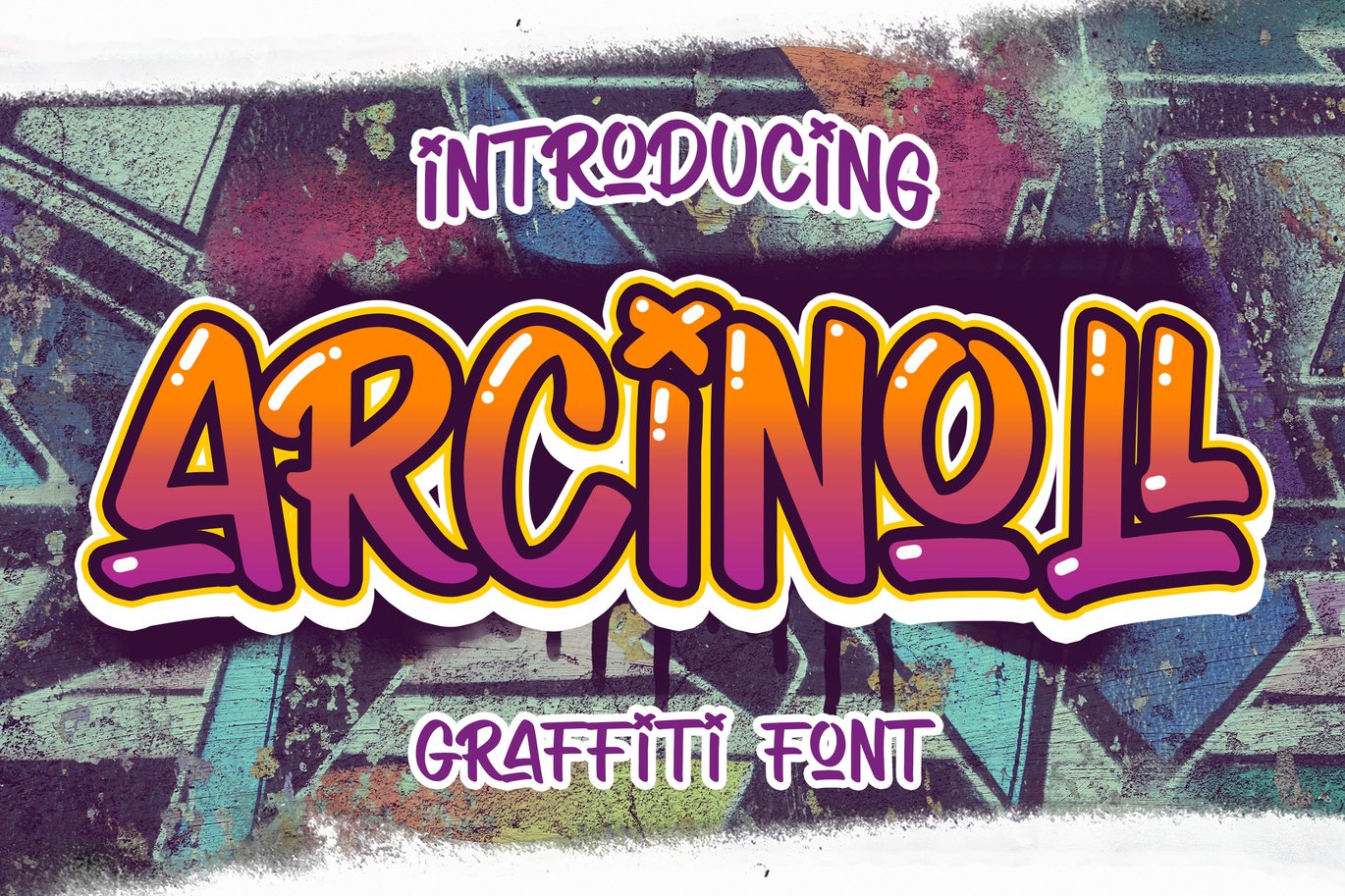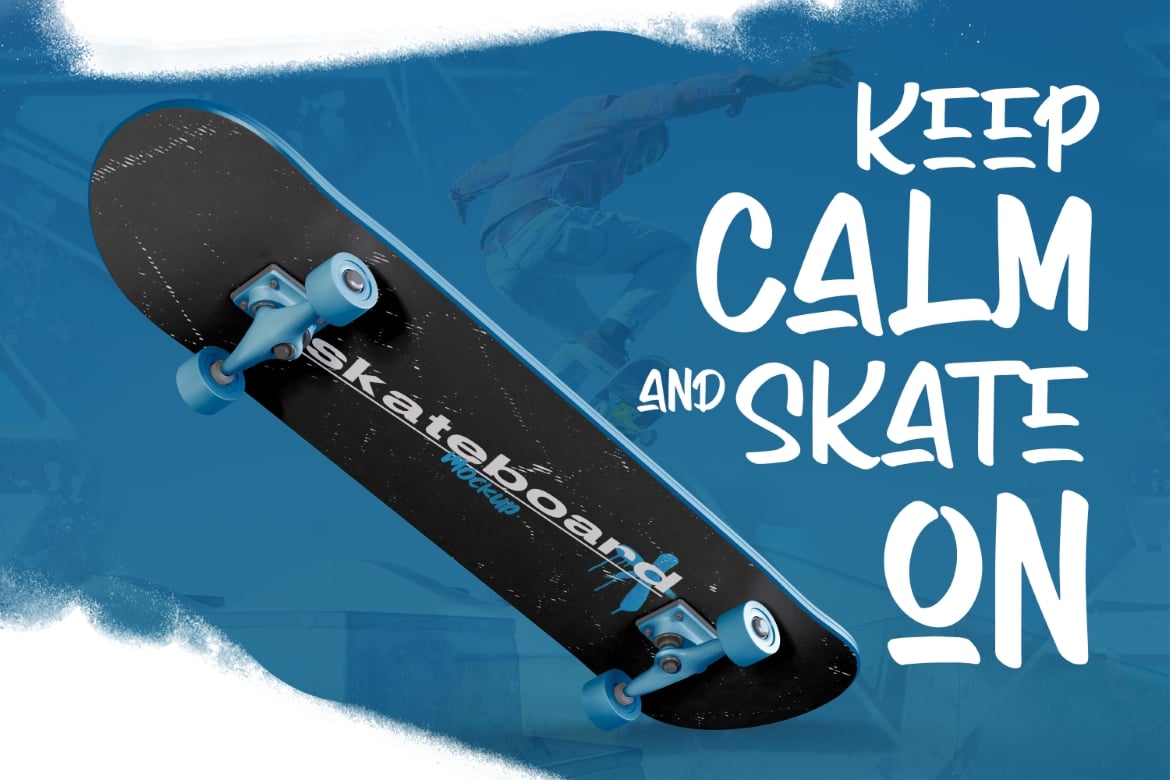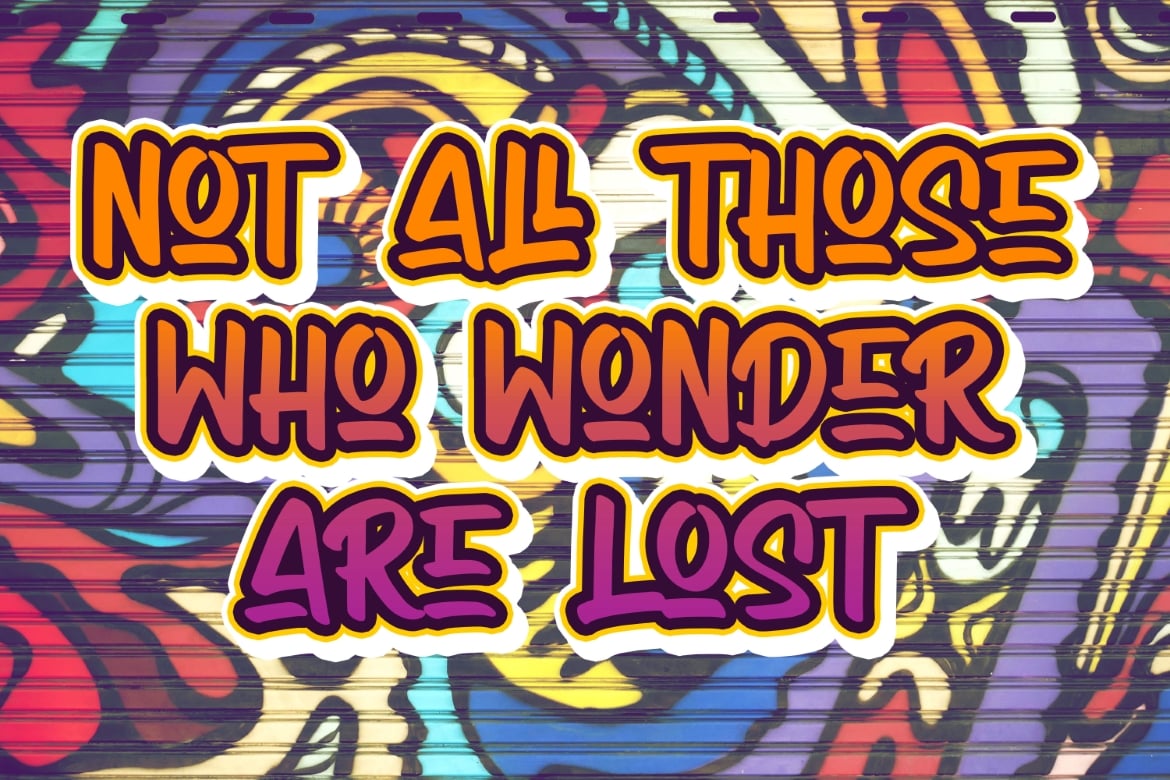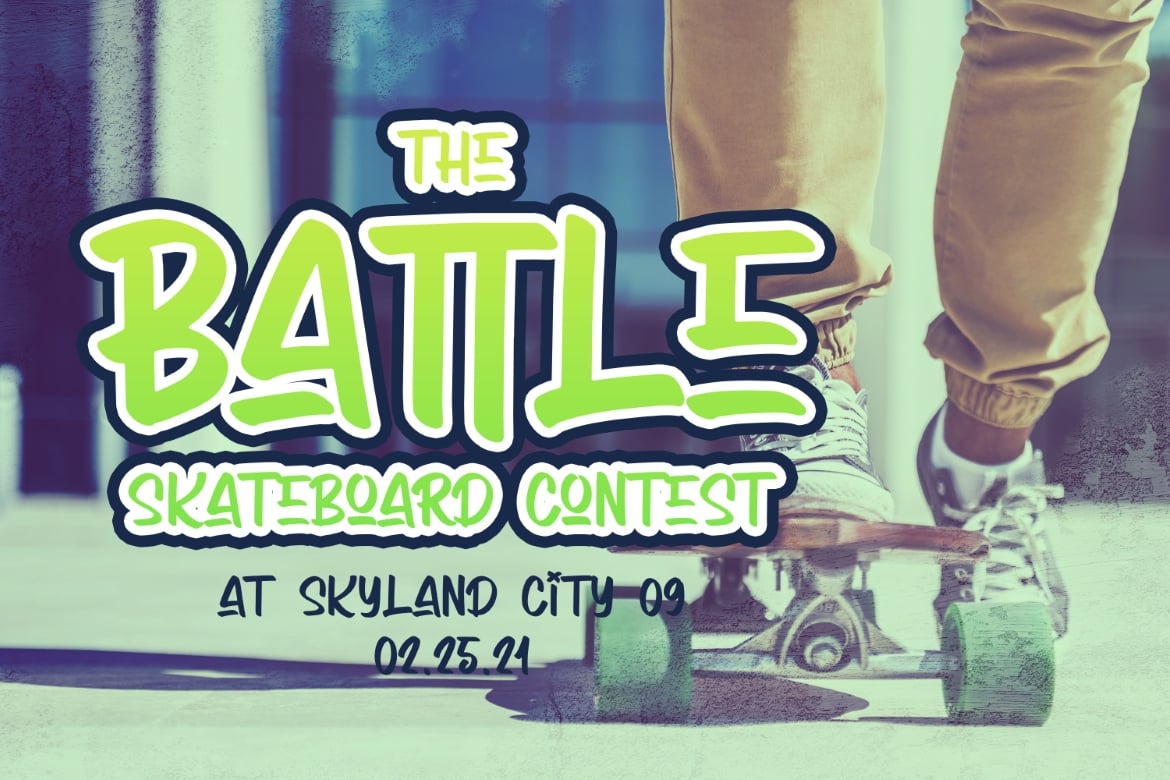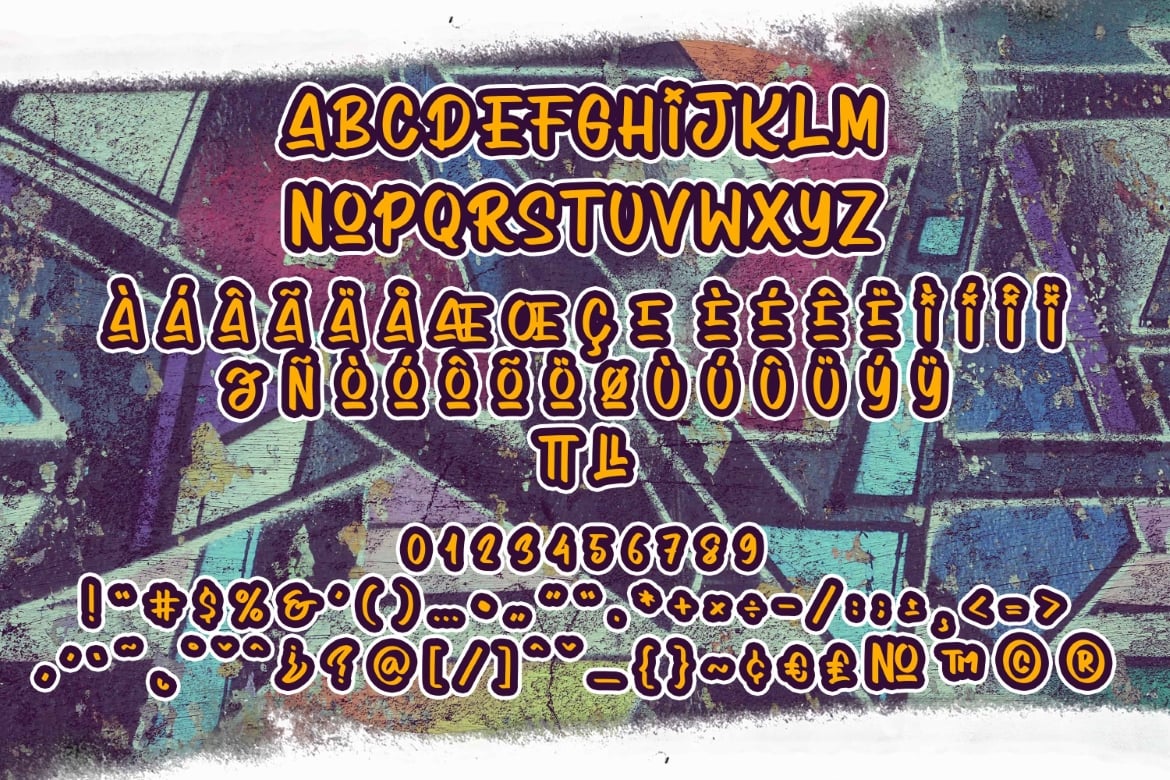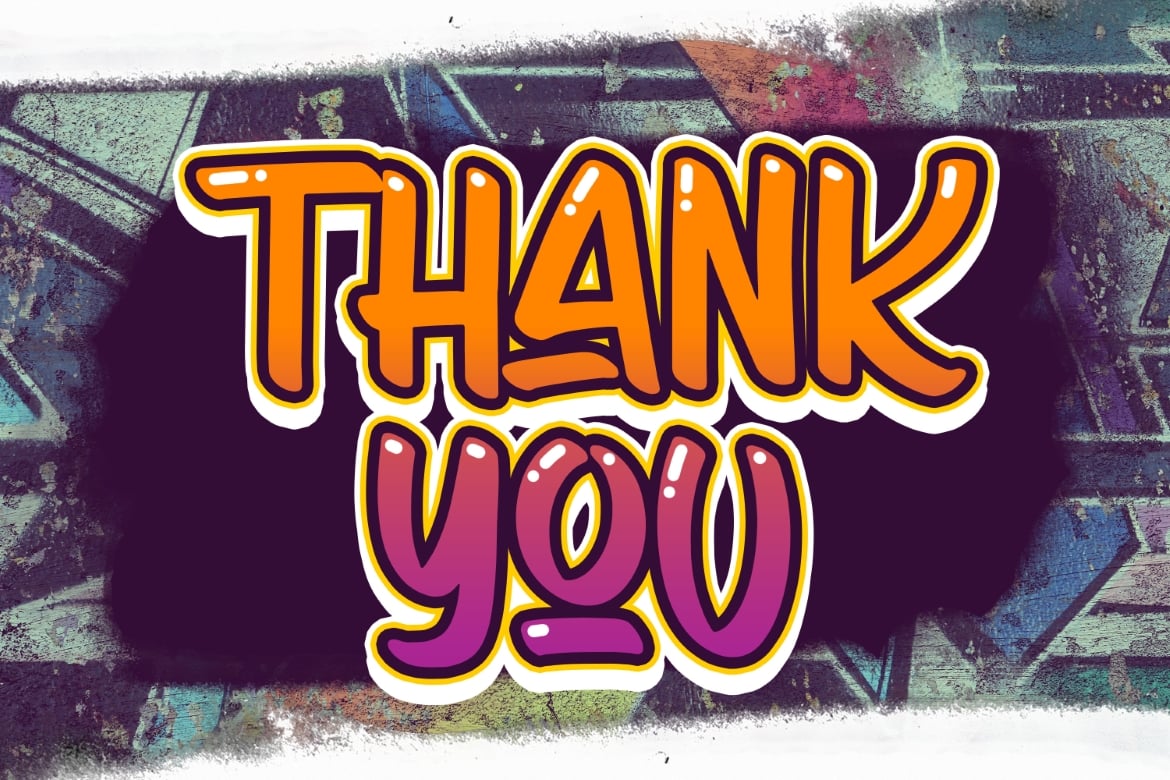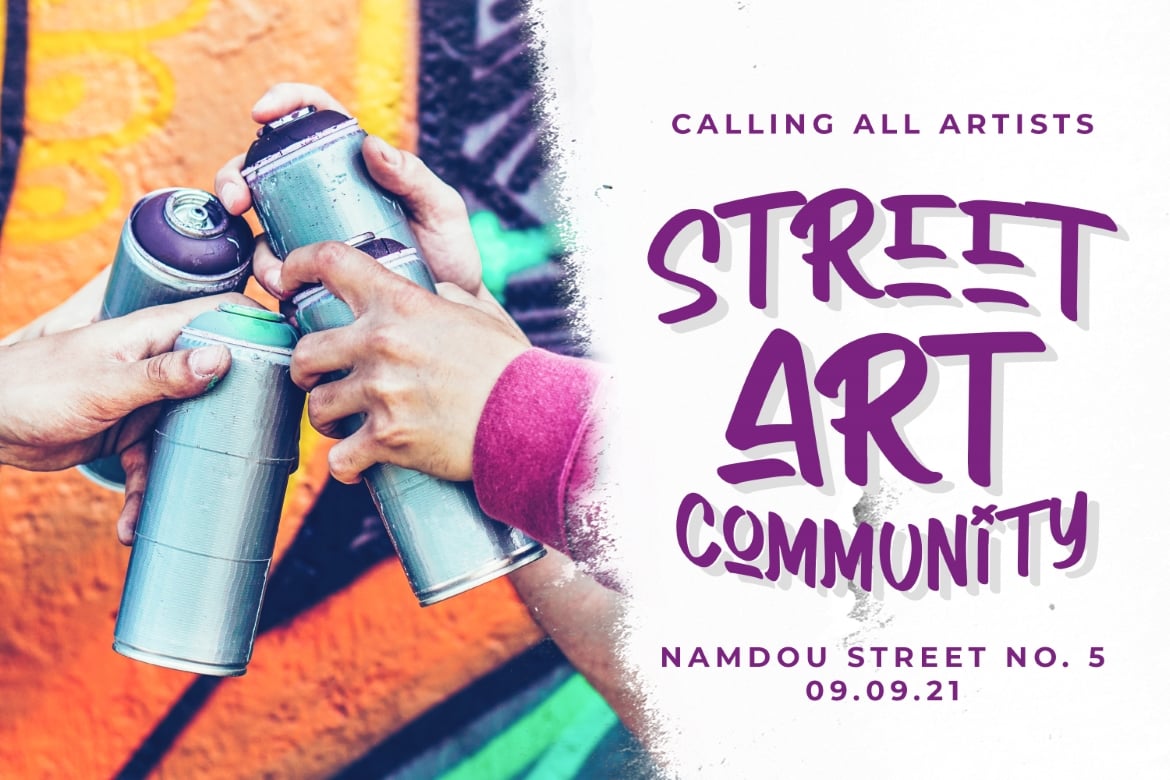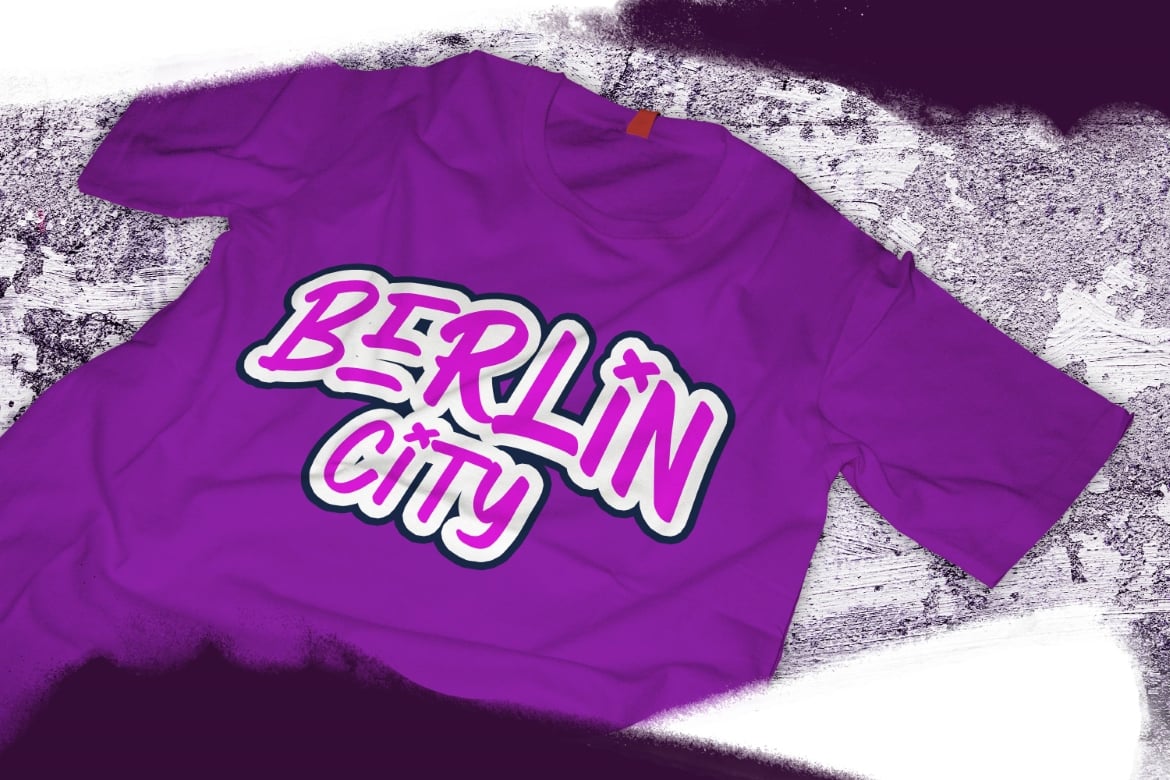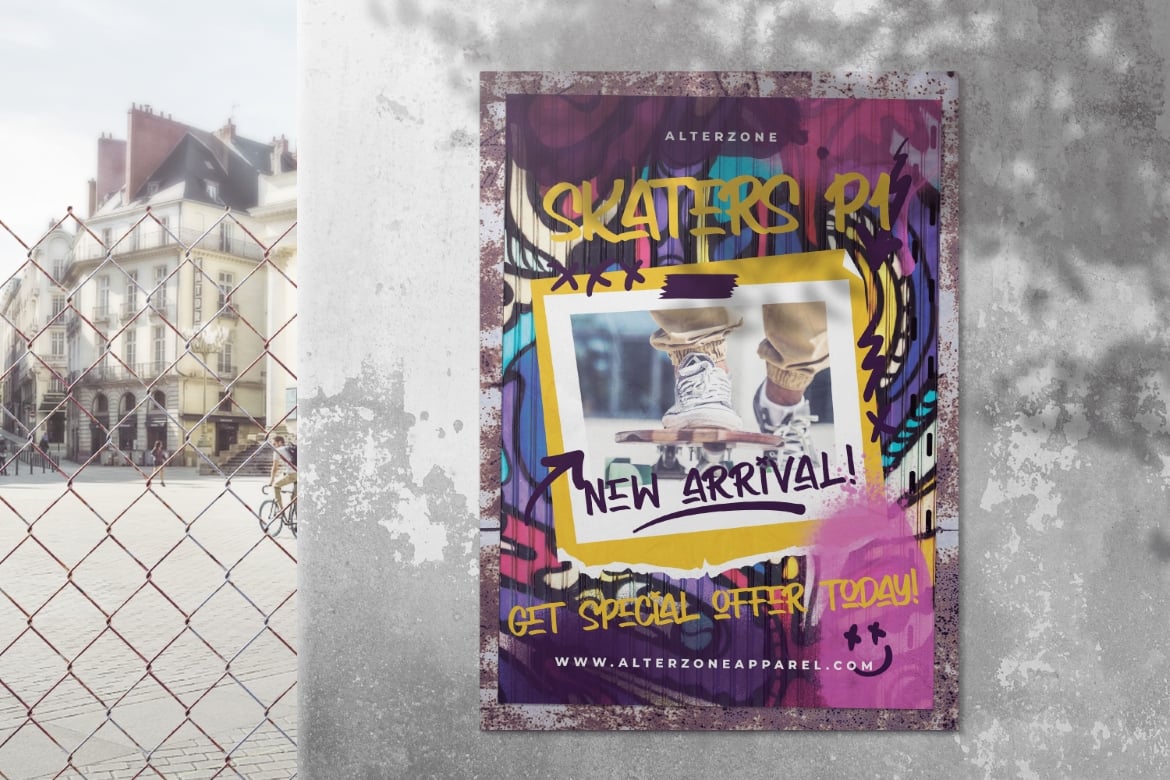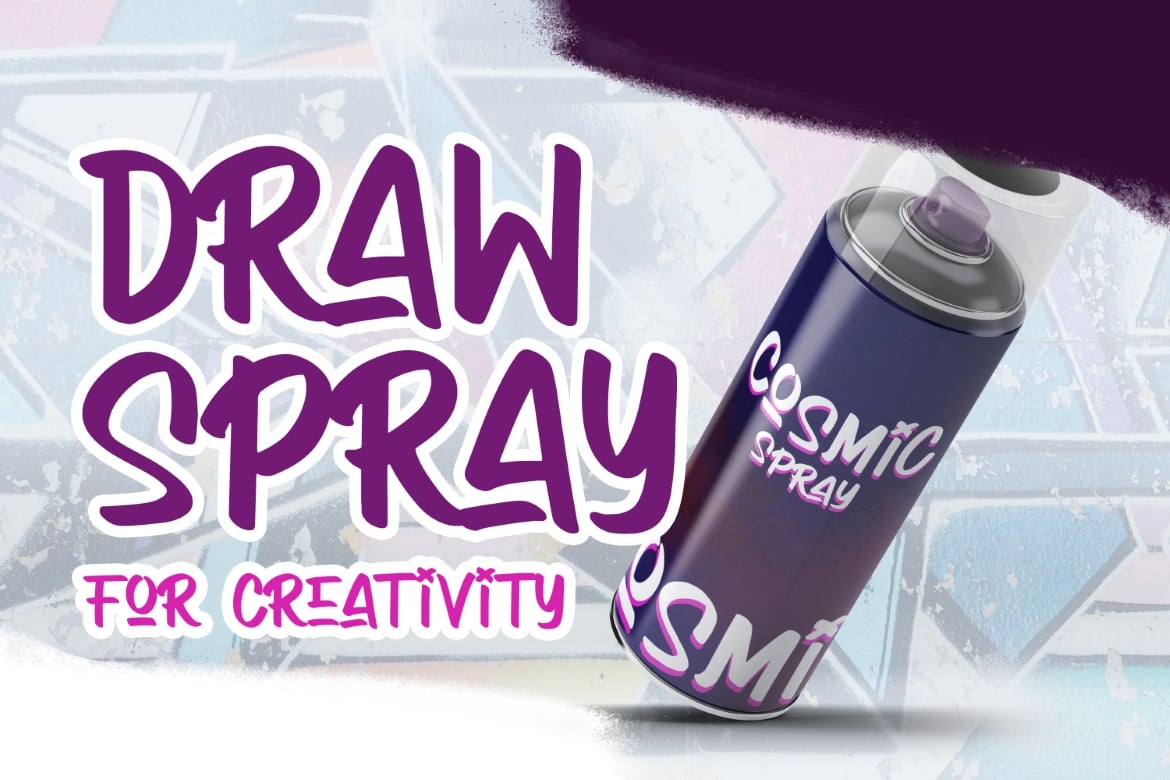
Arcinoll – Graffiti Font
Introducing Arcinoll – Graffiti Font inspired by graffiti style with a fun theme very good for graffity poster, kids poster, flyer, childrenbook, cartoon, branding projects, Logo design, Quotes product packaging
Fonts include multilingual support